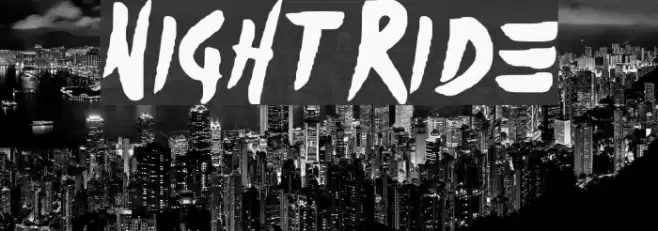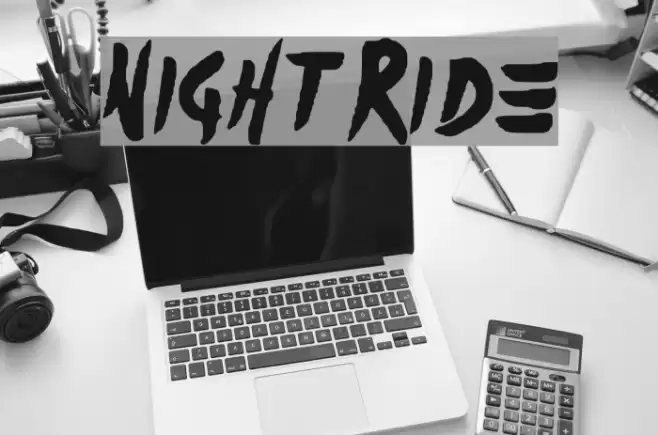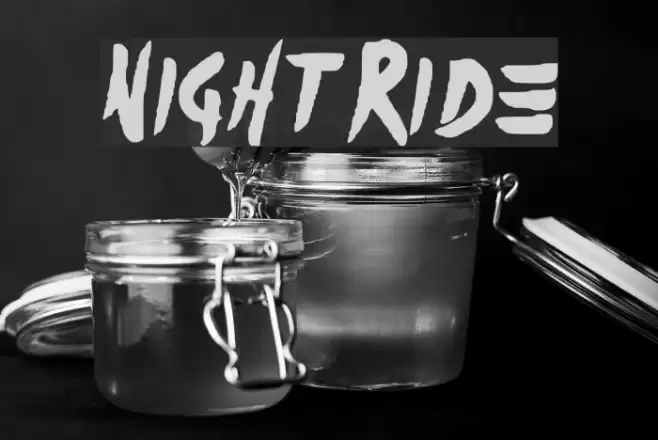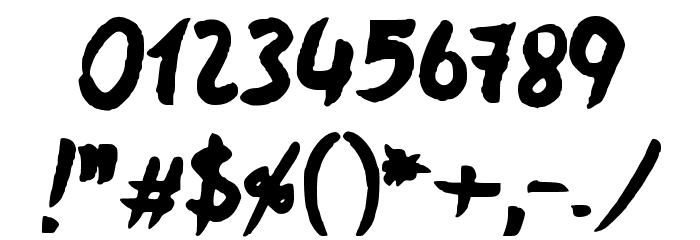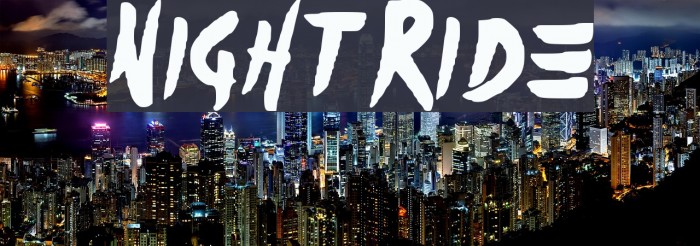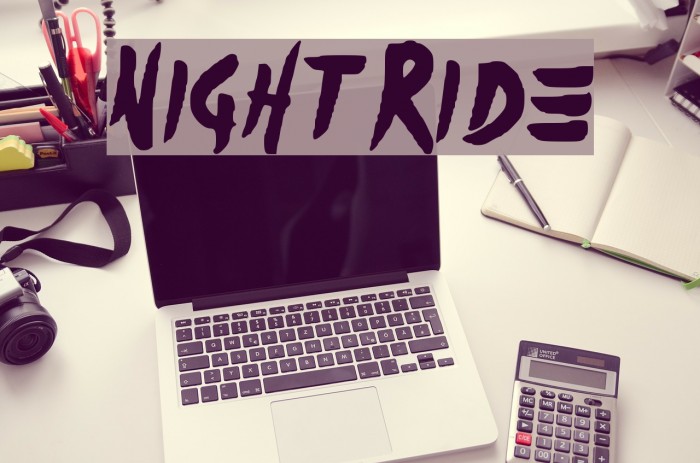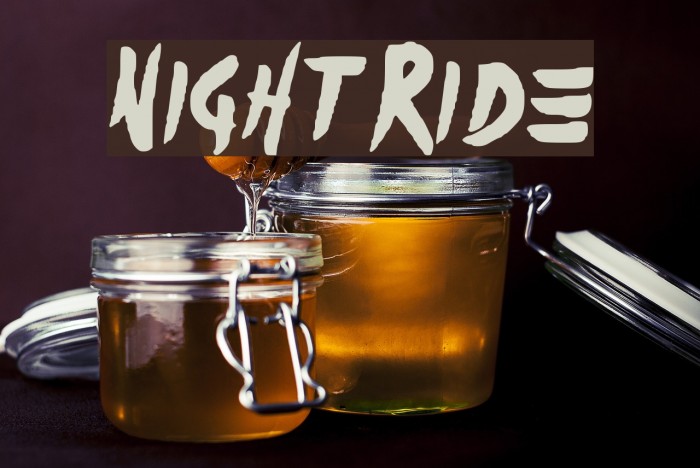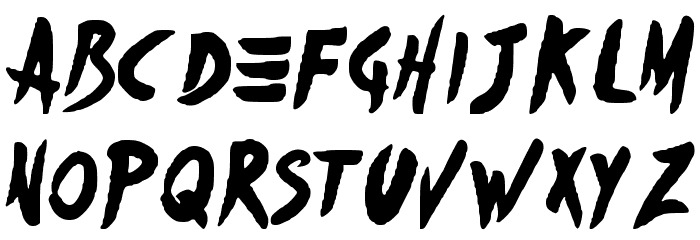
Night_Ride Font
Night_Ride Description
This font exhibits a bold, energetic style with a hand-drawn appearance, characterized by its dynamic and irregular strokes. The letters have a playful and slightly chaotic feel, with varying thicknesses that add to its expressive nature. The uppercase and lowercase letters maintain a consistent style, with a slightly slanted orientation that suggests movement. The numbers and special characters follow the same aesthetic, ensuring a cohesive look across all glyphs. This font is ideal for projects that require a touch of creativity and spontaneity, making it perfect for artistic and informal designs.
A bold, hand-drawn font with dynamic and irregular strokes, exuding energy and creativity from Script fonts.
- Proposed Projects: Ideal for posters, album covers, artistic projects, and informal branding.